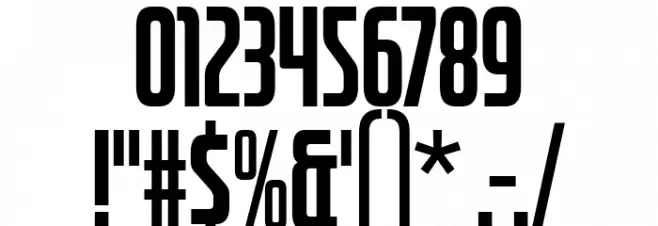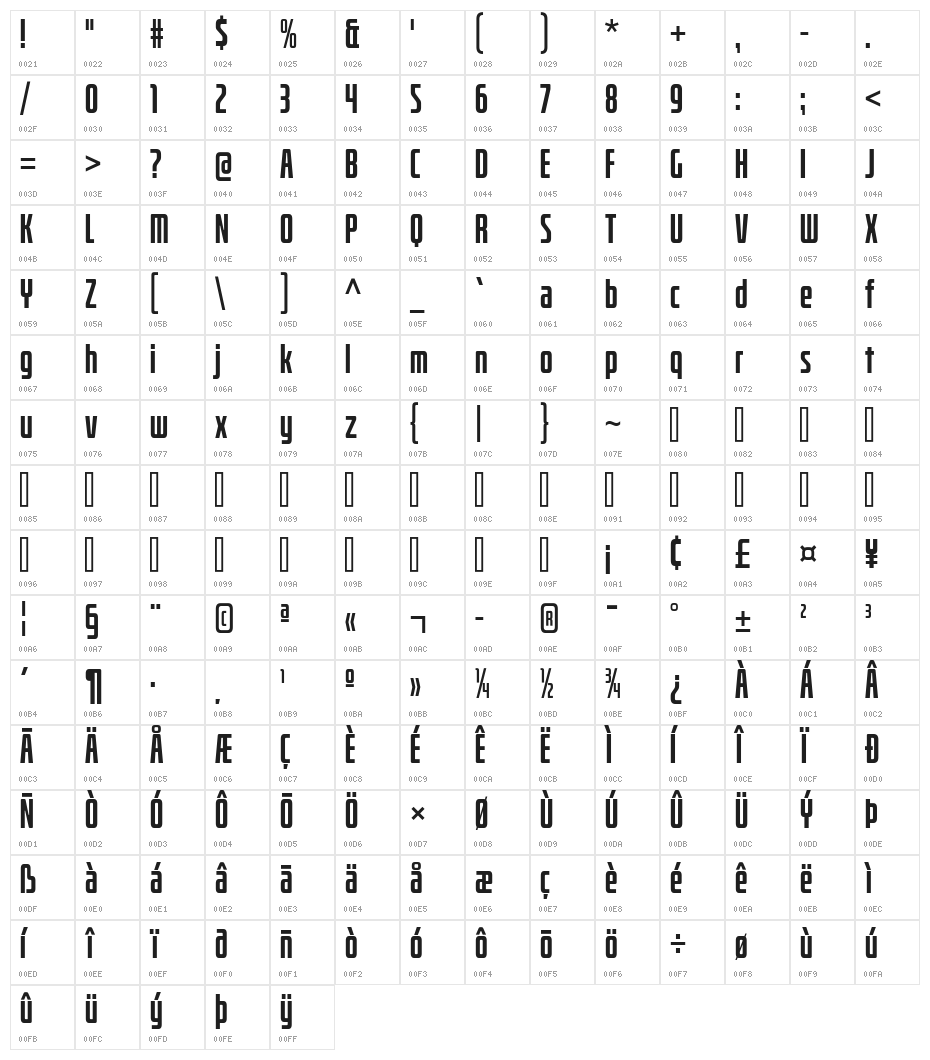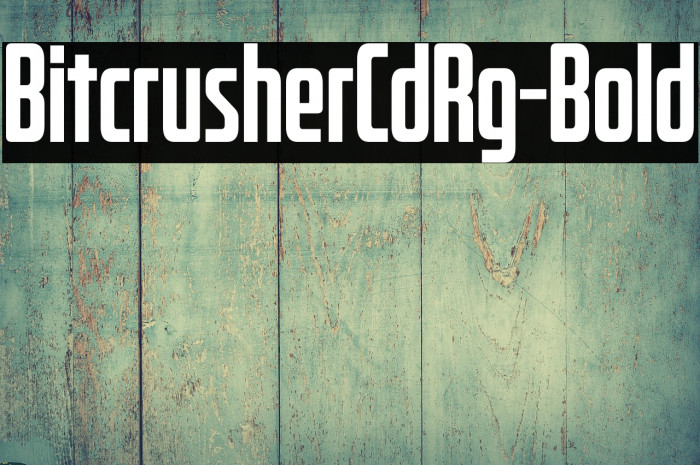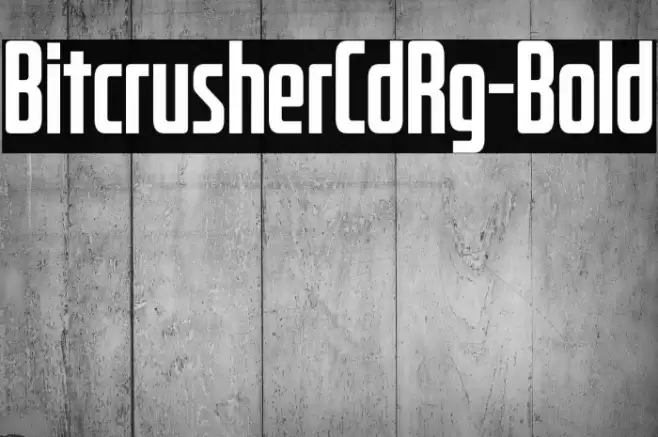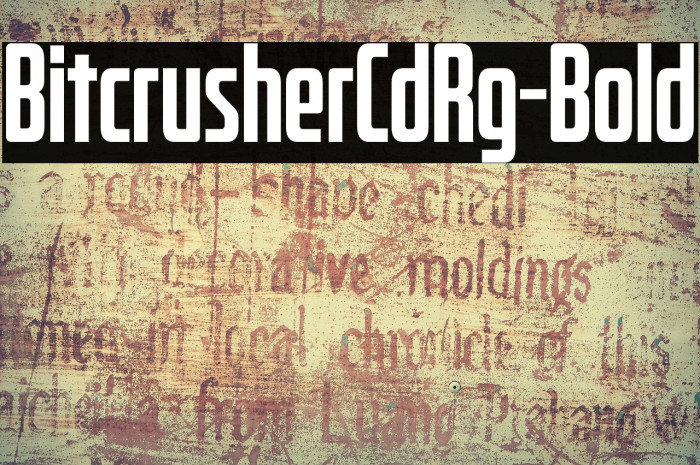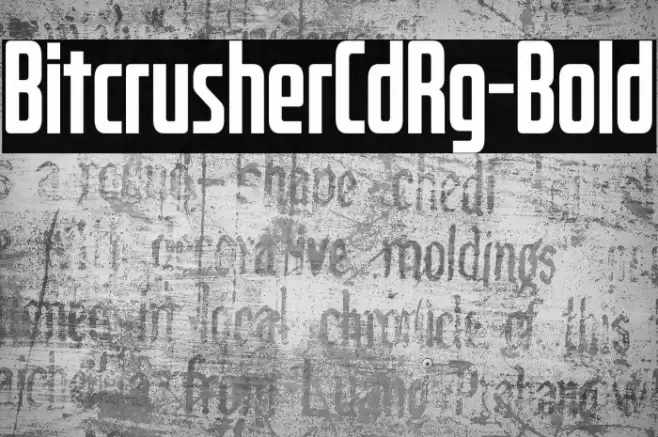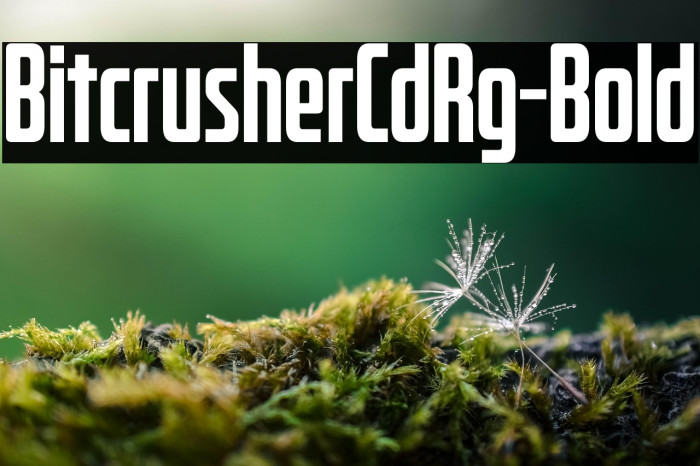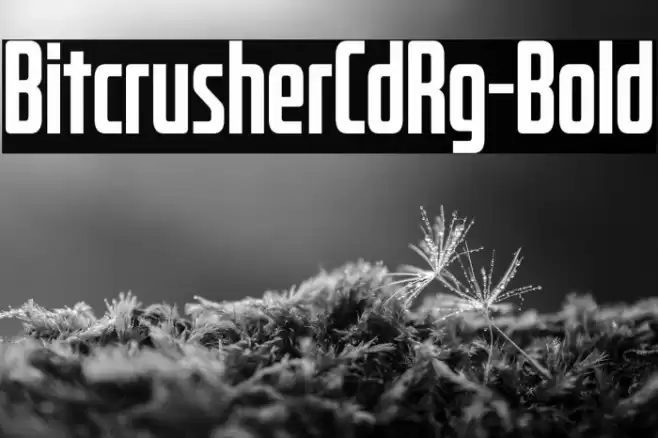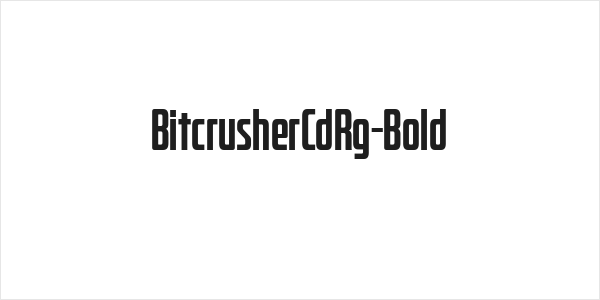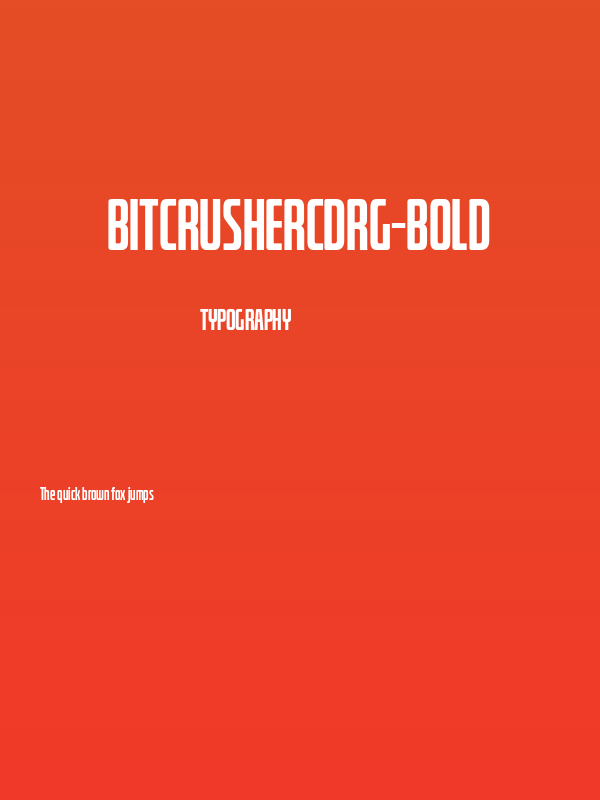
BitcrusherCdRg-Bold Font
BitcrusherCdRg-Bold Description
This font features a bold, geometric design with a strong presence. The characters are tall and narrow, giving a condensed appearance that maximizes vertical space. The strokes are consistent in width, providing a uniform look across all characters. The uppercase and lowercase letters maintain a similar width, enhancing readability. The numerals are distinct and align well with the overall style, while the special characters complement the font's bold aesthetic. This font is ideal for making a statement with its modern and assertive design.
| Proposed Projects | Ideal for headlines, posters, branding, and any project requiring a strong visual impact. |